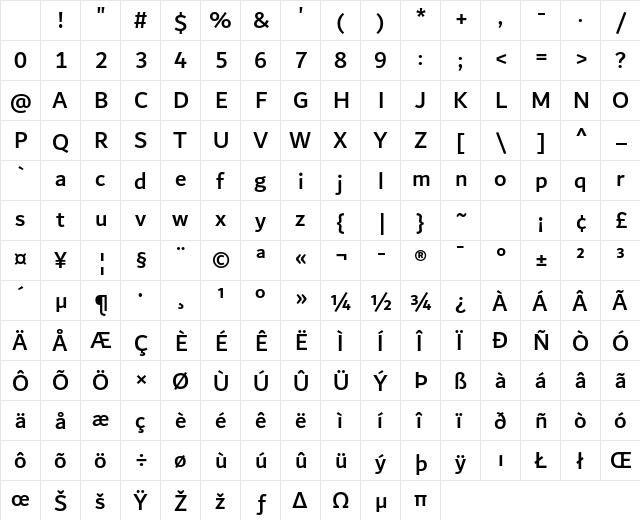
Complete Dubai Medium Balochi Regular glyph index. Displaying only characters natively supported by Dubai Medium Balochi Regular font.
Dubai Medium Balochi is a composed and adaptable typeface that performs quietly and consistently across a wide range of design contexts.